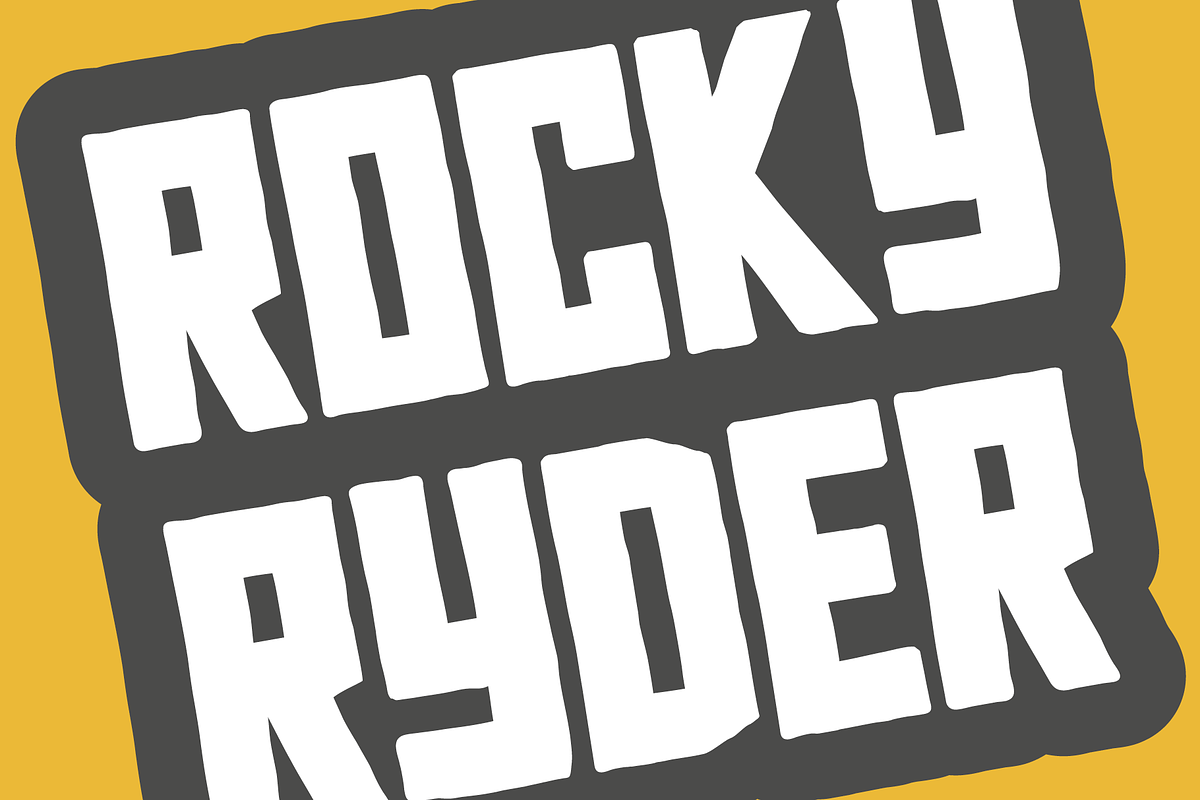
Rocky Ryder - A Rugged Display Font Free Download is a bold, textured typeface designed with a rugged, outdoor aesthetic. Its rough edges and strong, solid letterforms make it perfect for adventurous branding, sports posters, western-themed designs, and anything that needs a strong, bold statement. It’s designed to evoke a sense of strength and durability, perfect for brands or projects with a bold, rugged personality.
Using the Rocky Ryder - A Rugged Display Font Free Download adds a tough, bold character to your design. Whether you're working on outdoor branding, adventure-related marketing, or vintage western posters, this font brings a strong, authentic vibe to your typography.